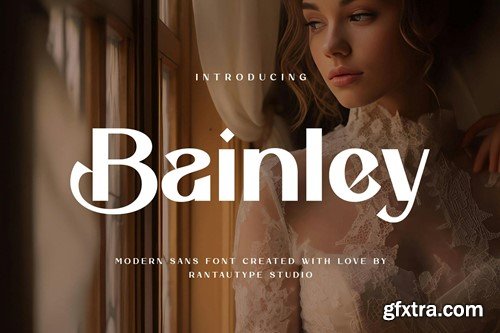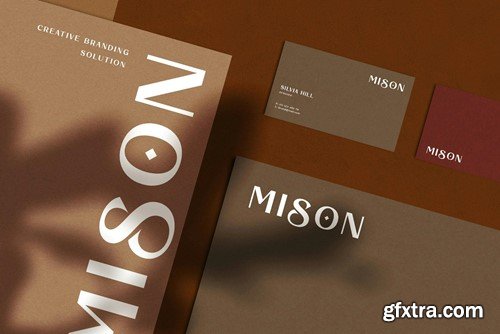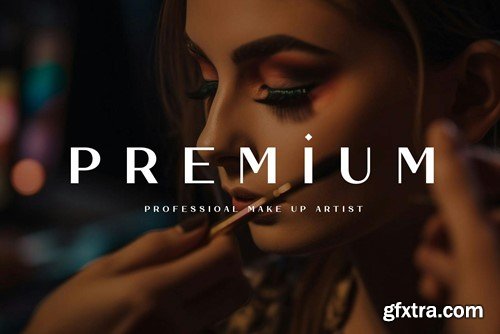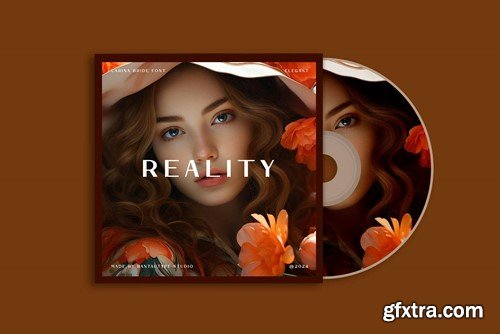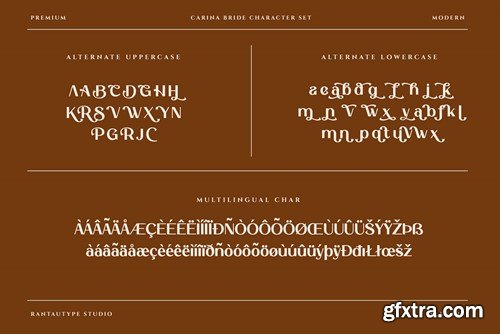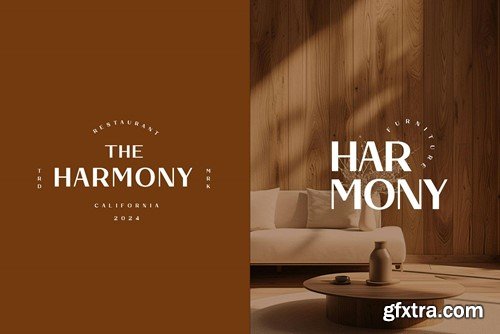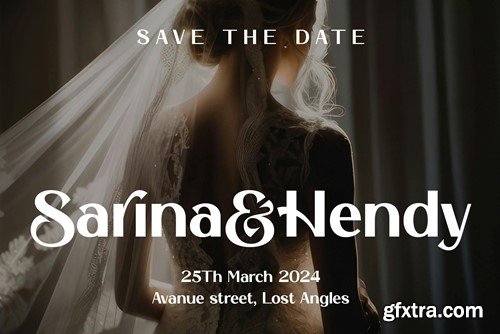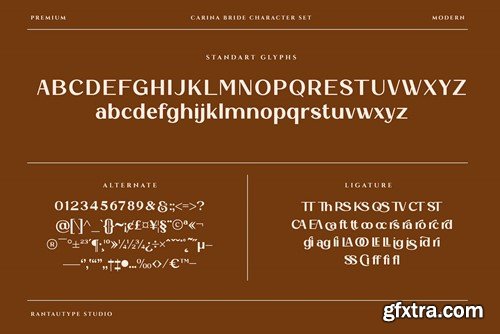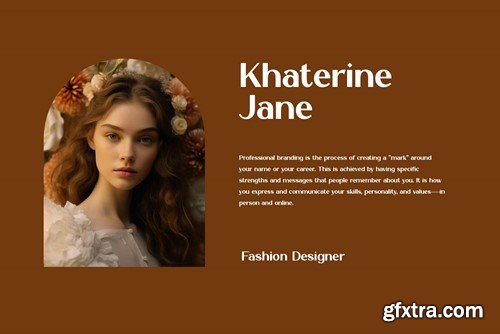
Bainley Modern Feminine Typeface RPZKSXZ
Bianley is modern sans typeface with luxorious and elegancy style. Bainley come with much feature to bring a creative idea. Bianley is a perfectly choice for any creative endeavor, chic, lifestyle design such as logos, advertisements, watermark on photography, stationery, branding project, display and magazine, invitation, corporate brand, product design, label, business project and many other project with elegant touch. What you have: Fonts include Multilingual Character for: Afrikaans, Albanian, Asu, Basque, Bemba, Bena, Breton, Chiga, Cornish, Dutch, English, Estonian, Filipino, Finnish, Friulian, Galician, Gusii, Indonesian, Irish, Italian, Kabuverdianu, Kalenjin, Kinyarwanda, Luo, Luxembourgish, Luyia, Machame, Makhuwa-Meetto, Makonde, Malagasy, Manx, Morisyen, North, Ndebele, Nyankole, Oromo, Portuguese, Quechua, Romansh, Rombo, Rundi, Rwa, Samburu, Sango, Sangu, Scottish, Gaelic, Sena, Shambala, Shona, Soga, Somali, Spanish, Swahili, Swedish, Swiss, German. Thank you for your purchase! Hope you enjoy with our font!